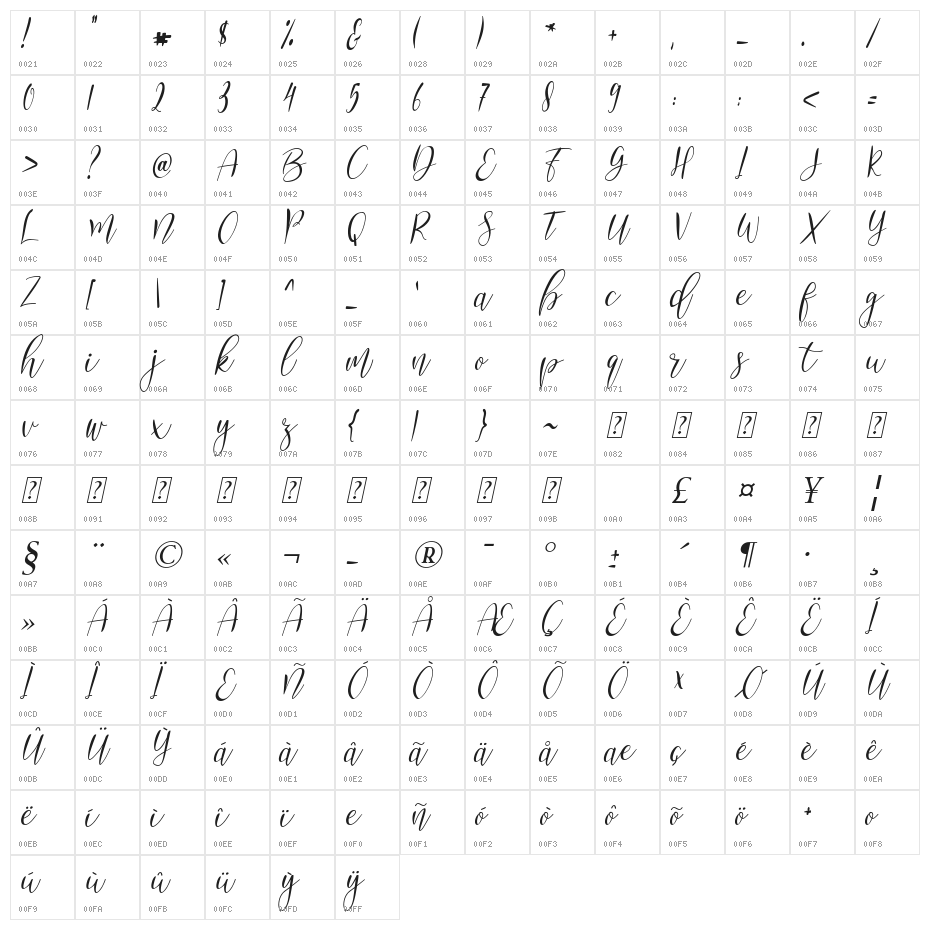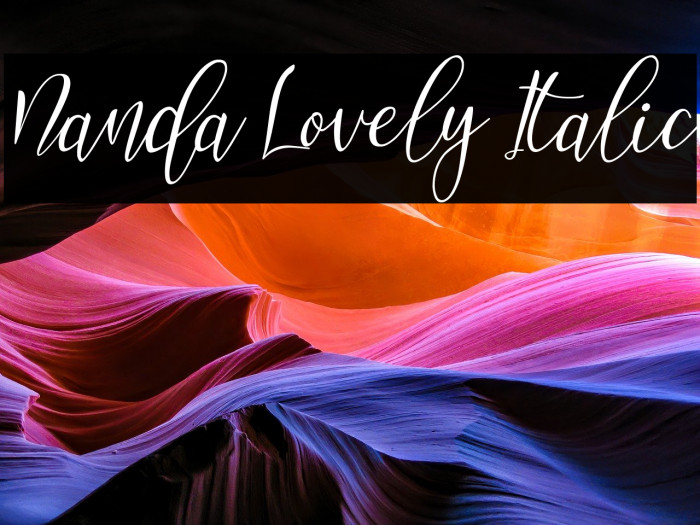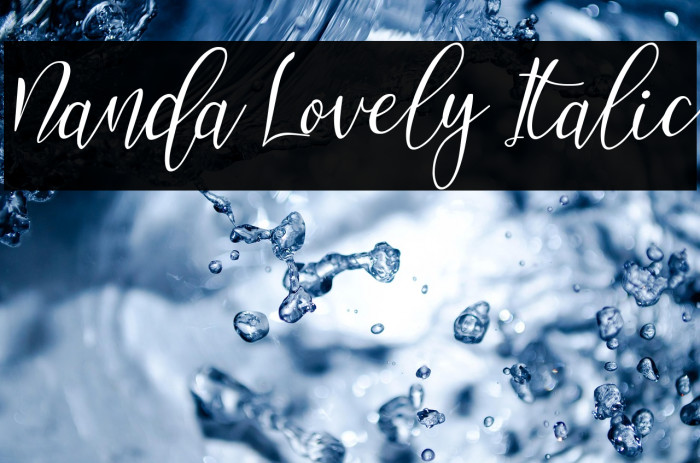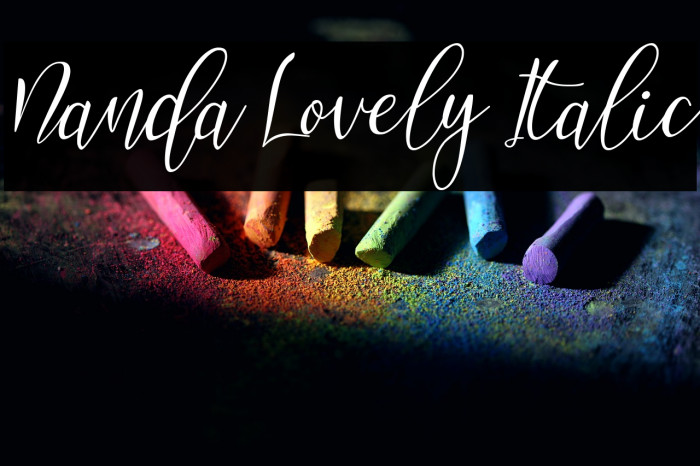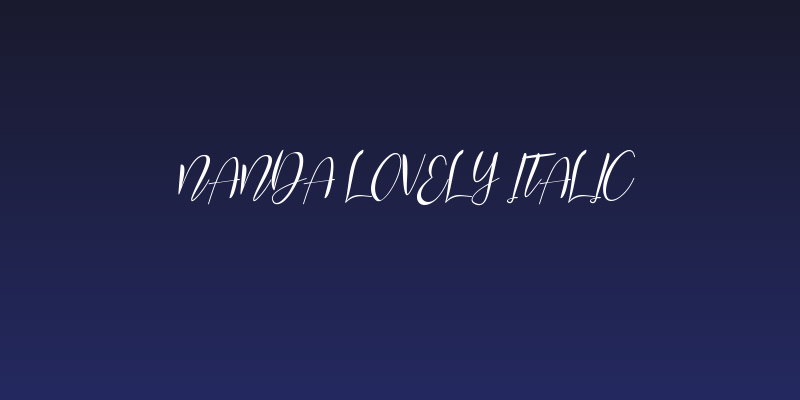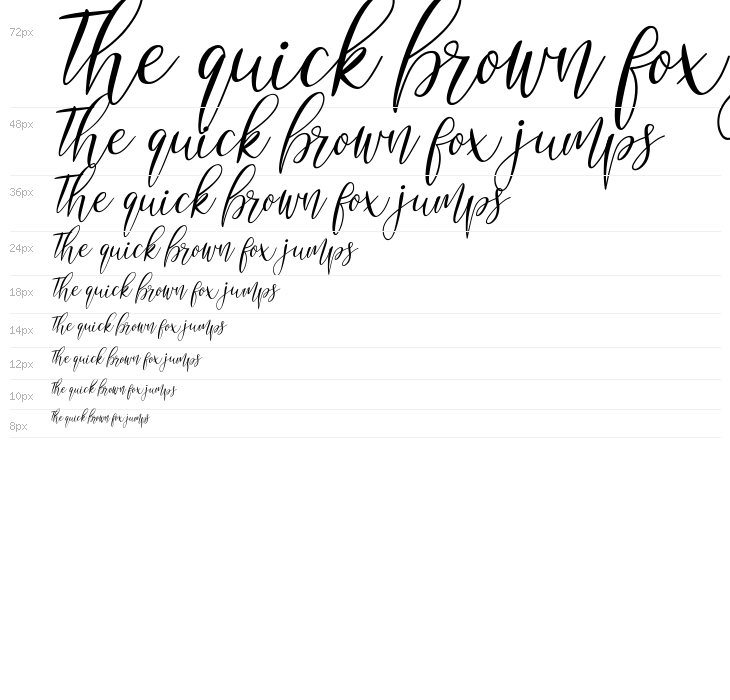
Nanda Lovely Italic Font
Nanda Lovely Italic Description
This font features an elegant and flowing script style, characterized by its smooth, cursive strokes and a graceful, handwritten appearance. The letters are connected in a fluid manner, creating a sense of continuity and movement. The uppercase letters are tall and slightly slanted, while the lowercase letters are more compact and intricately designed. The numerals and special characters maintain the same fluidity, adding a cohesive look to the overall typeface. This font exudes a sense of sophistication and charm, making it ideal for projects that require a personal and artistic touch.
| Overall Style | Elegant, Artistic |
| Proposed Projects | Ideal for wedding invitations, greeting cards, branding, and elegant logo designs. |